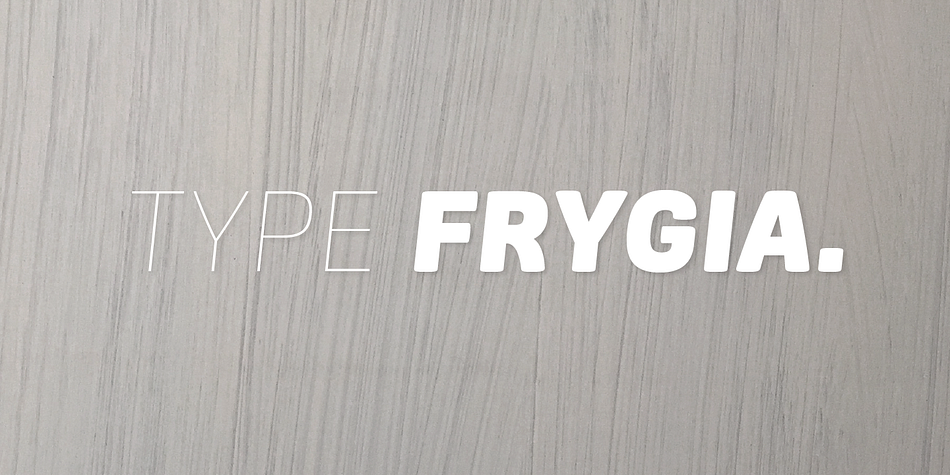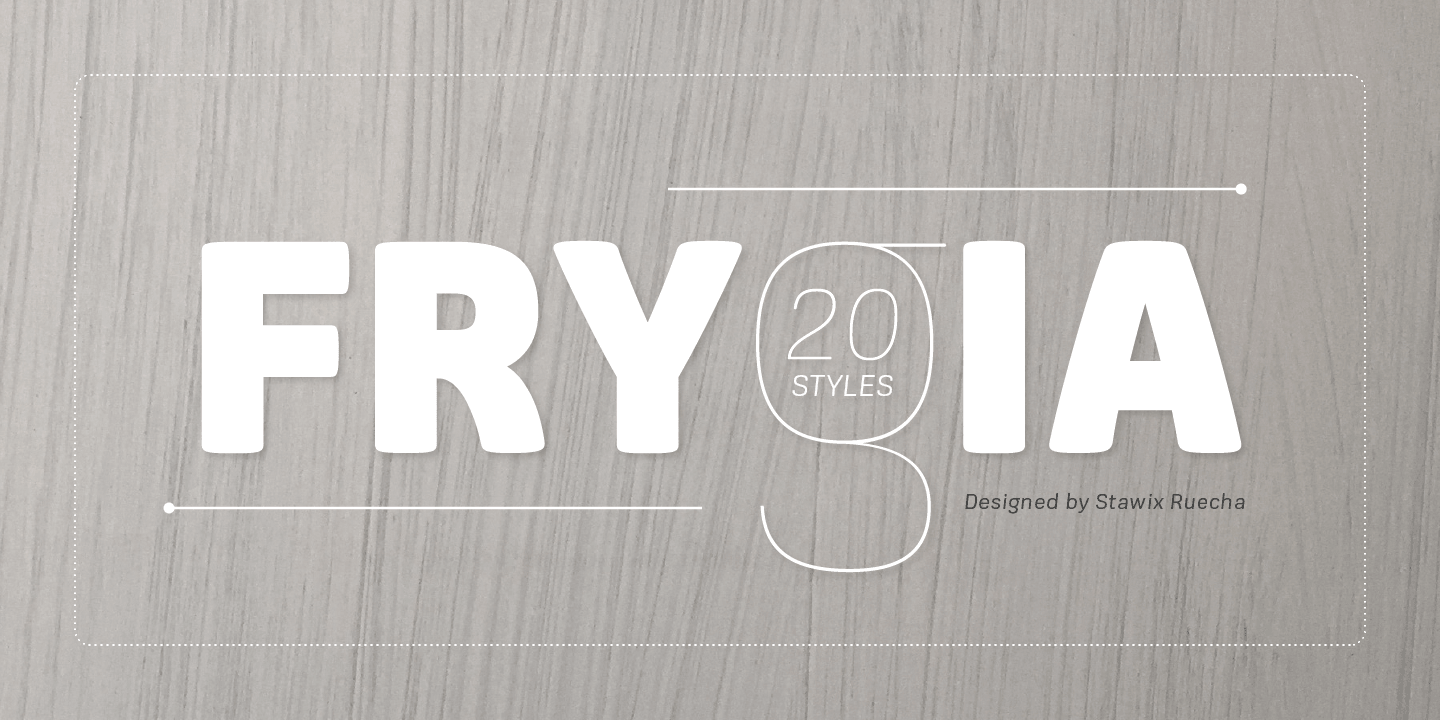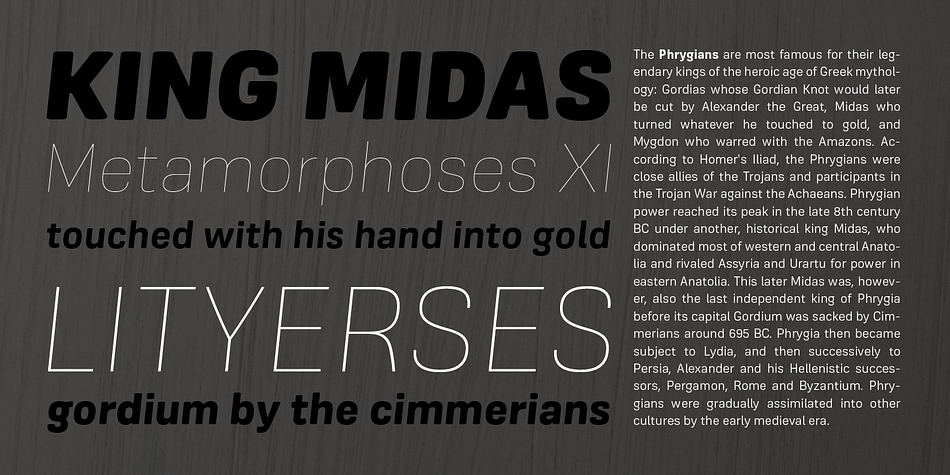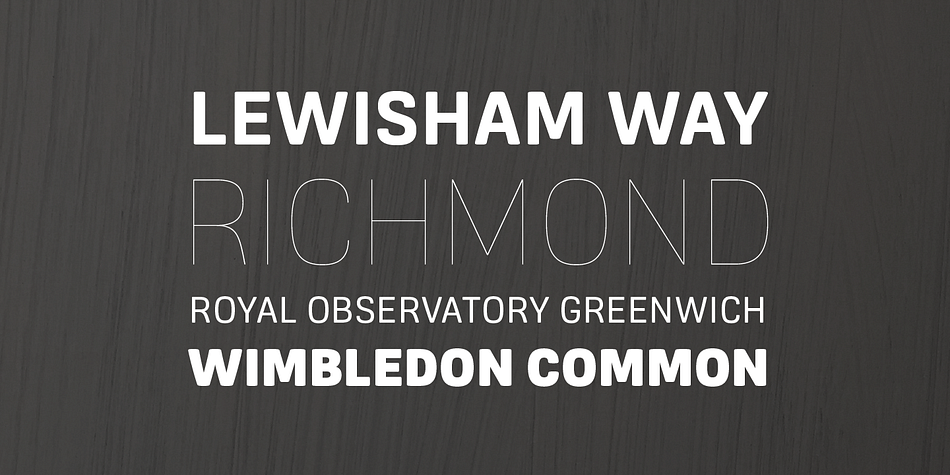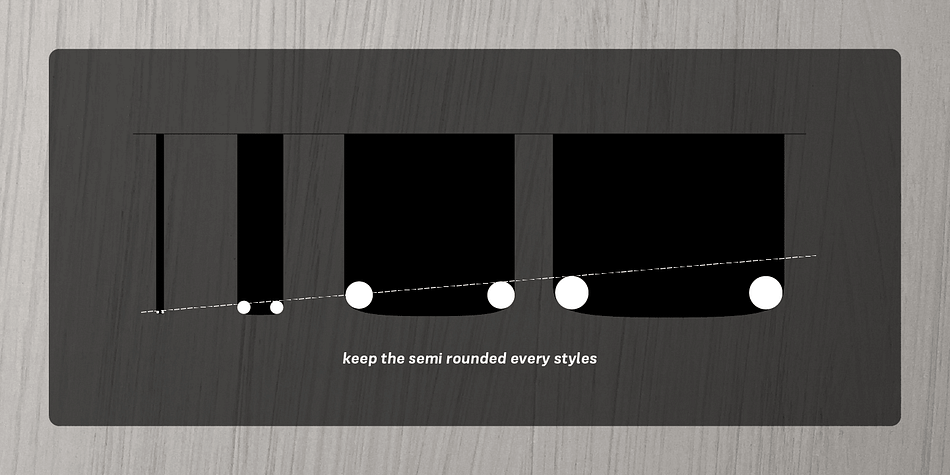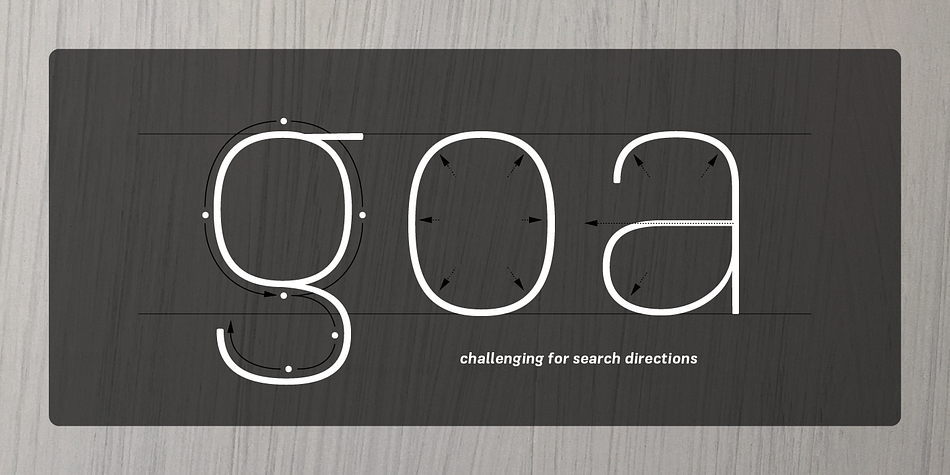
Designed by Stawix Ruecha and Kawisara Vacharaprucks, Frygia is a sans serif font family. This typeface has twenty styles and was published by Stawix.
Frygia is inspired by the astonishing mythology along with a new method and approach of type design. As an example, the construction of the lowercase g; the line structure which is slightly curved helps to aid the optical illusion and the integration of Industrial San Serif style making Frygia extremely compatible and ready for every usage on the layout.
The Frygia Family consistes of 20 styles and 10 weights, ranging from the thinnest Hairline to the boldest Black and a Semi Rounded corner to suit the concept of the typeface.
| Style | Sans Serif |
| Designers | Stawix Ruecha, Kawisara Vacharaprucks |